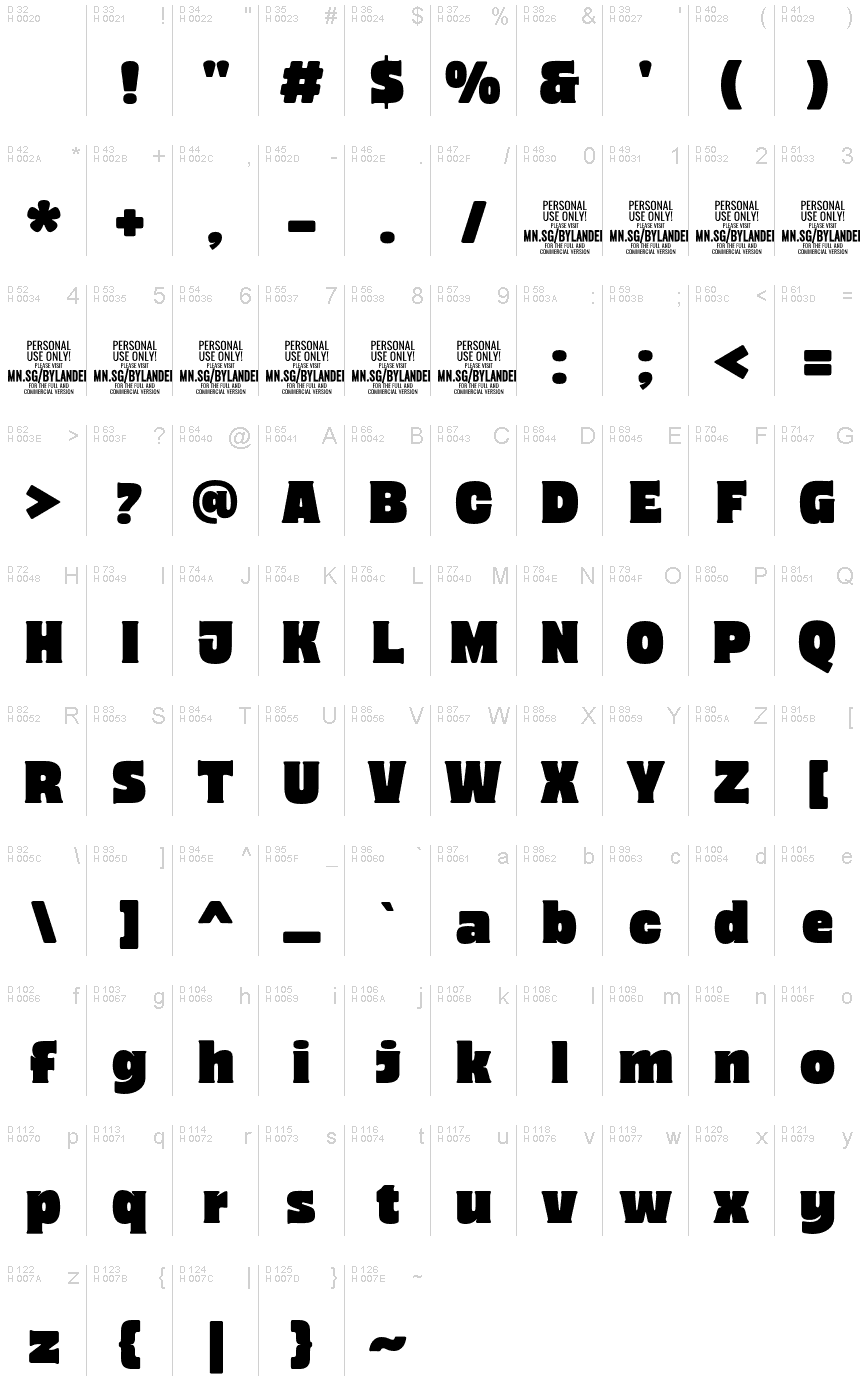
Bylander is a stateful serif font designed by Mans Greback. Its extra-bold weight and semi-expanded width give it a powerful and unique presence. With robust, heavy letterforms reminiscent of a foundry's hammer hitting molten metal, Bylander's characters seem forged from the core of the Earth.
This font is suitable for projects that require a strong and impactful design. It can be used for headlines, logos, or branding materials where you want to make a bold statement. Bylander adds a touch of strength and durability to any project, making it perfect for industries such as construction, engineering, or automotive. Let your message resonate with an unforgettable font like Bylander.